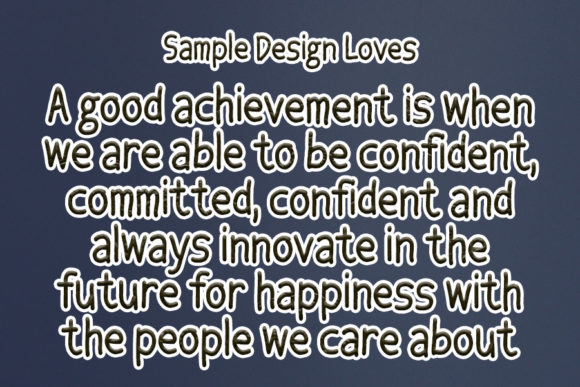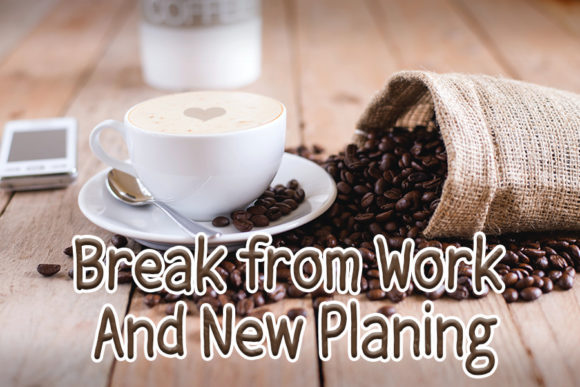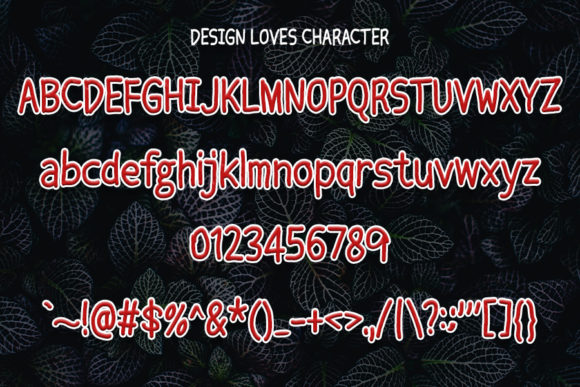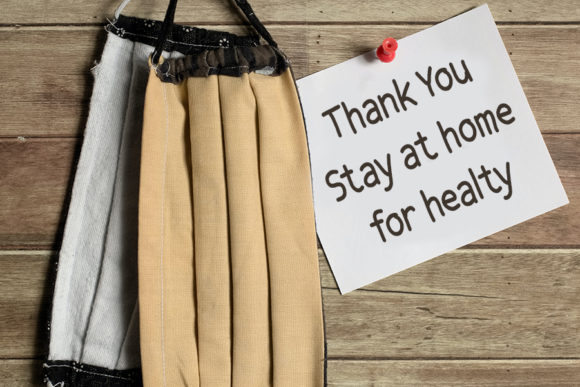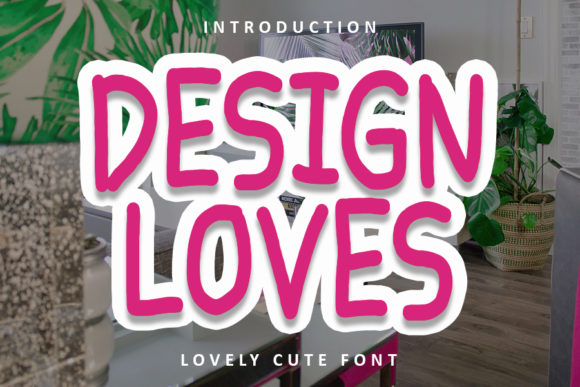
Design Loves Font: The Perfect Blend of Style and Versatility
In the world of design, fonts play a crucial role in conveying the intended message and adding aesthetic appeal to a project. With numerous font options available, finding the perfect one that balances trendiness and readability can be a daunting task. However, if you’re looking for a font that ticks all the right boxes, look no further than Design Loves Font. In this article, we’ll explore the features and benefits of Design Loves Font, and why it’s an excellent choice for designers, crafters, and anyone looking to add a touch of elegance to their projects.
What is Design Loves Font?
Design Loves Font is a simple and neat display font that boasts the perfect amount of trendiness. Its clean lines, elegant curves, and balanced proportions make it an excellent choice for a wide range of applications. Whether you’re working on a digital design project, crafting, creating presentations, or making greeting cards, Design Loves Font is the perfect companion.
Key Features of Design Loves Font
- Clean and Simple Design: Design Loves Font features a clean and simple design that ensures excellent readability, even at smaller font sizes.
- Trendy and Modern: The font’s trendy and modern aesthetic makes it perfect for designers and crafters looking to add a touch of sophistication to their projects.
- Versatile: Design Loves Font is incredibly versatile and can be used for a wide range of applications, from digital designing to crafting and paper crafting.
- Elegant Curves: The font’s elegant curves and balanced proportions add a touch of elegance to any project.
Benefits of Using Design Loves Font
So, why should you choose Design Loves Font for your next project? Here are just a few benefits of using this amazing font:
- Enhance Your Design: Design Loves Font can instantly elevate your design and add a touch of sophistication.
- Improve Readability: The font’s clean design and balanced proportions ensure excellent readability, even at smaller font sizes.
- Save Time: With Design Loves Font, you can save time and effort searching for the perfect font, and focus on creating stunning designs.
- Perfect for Crafting: The font is perfect for crafters, scrapbookers, and paper crafters looking to add a touch of elegance to their projects.
Use Cases for Design Loves Font
Design Loves Font is an incredibly versatile font that can be used for a wide range of applications, including:
- Digital Designing: Use Design Loves Font for your digital design projects, such as brochures, flyers, and social media graphics.
- Crafting and Scrapbooking: Add a touch of elegance to your scrapbooking and crafting projects with Design Loves Font.
- Presentations: Use Design Loves Font to create stunning presentations that are sure to impress.
- Greeting Cards: Create beautiful greeting cards for special occasions using Design Loves Font.
In conclusion, Design Loves Font is an excellent choice for designers, crafters, and anyone looking to add a touch of elegance to their projects. Its clean design, trendy aesthetic, and versatility make it perfect for a wide range of applications. Whether you’re working on a digital design project, crafting, or creating presentations, Design Loves Font is the perfect companion. So, why wait? Download Design Loves Font today and take your designs to the next level!